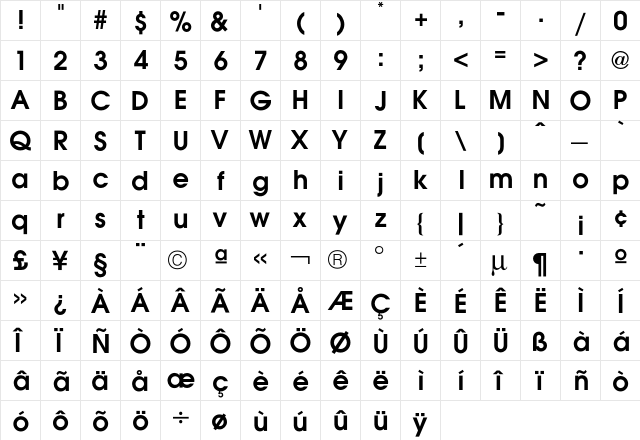
Avant GardeDemi Font Preview
Avant GardeDemi
Design Context for Avant Typeface
Avant takes a measured approach to typography — its balanced proportions and neutral character make it a reliable workhorse for both digital and print work.